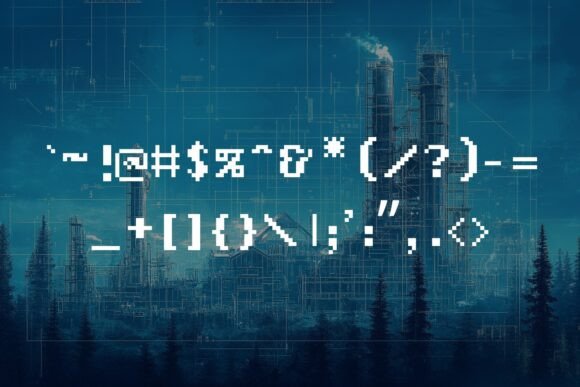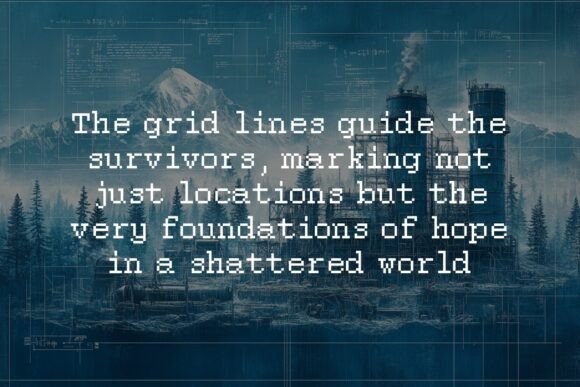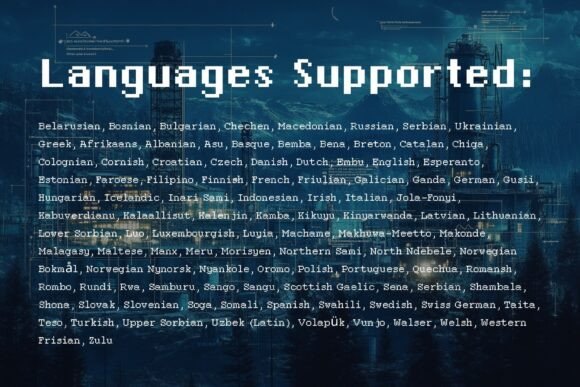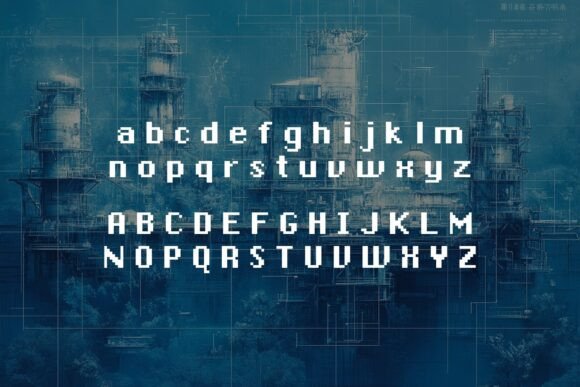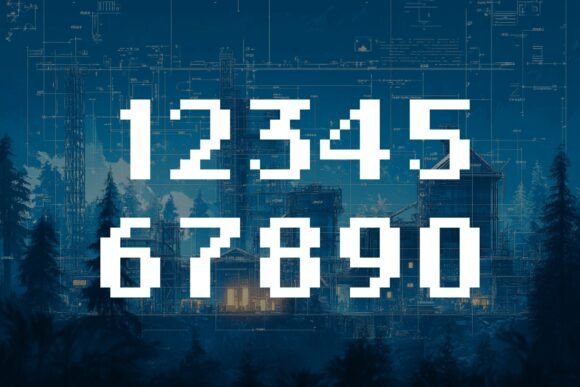
Unlock the Power of Retro Chic: Introducing Block Blueprint Font
Have you ever stared at a blank canvas, desperate to bring your next design project to life, only to be met with a sea of pixels and a blank slate? We’ve all been there – the thrill of creation, the agony of uncertainty. But what if you could tap into a timeless aesthetic that not only evokes nostalgia but also brings precision and clarity to your work?
Enter the Block Blueprint Font, a sleek and legible 8-bit pixel font designed to transport your digital designs back in time while retaining the functionality of modern typography. This versatile font is the perfect companion for any project that requires a pixelated look, from retro games to digital art and everything in between. With its crisp, well-defined characters, the Block Blueprint Font ensures maximum readability across various screen sizes and resolutions, making it an invaluable asset for designers.
Key Features of Block Blueprint Font
- Font Size: The font is designed to be highly legible at sizes ranging from 12pt to 24pt, making it suitable for a wide range of applications, including body text and headings.
- Resolution: Block Blueprint Font is designed to be resolution-independent, ensuring it looks crisp and clear at various resolutions, from low-resolution displays to high-resolution screens.
- Unique Characteristic: The font features a distinctive block-like structure, with each letter carefully crafted to provide maximum clarity and readability, making it an ideal choice for use in technical and instructional contexts.
- Language Support: The font supports a wide range of languages, including Latin, Cyrillic, and Greek, making it a versatile choice for global applications.
Block Blueprint Font Review
Overall, I’m impressed with the Block Blueprint Font, but it’s not without its quirks. Let’s dive into what works well and what doesn’t.
- The font’s grid-based design is perfect for creating a modern, industrial look.
- The characters are well-spaced and easy to read, even at smaller font sizes.
- The font is highly customizable, allowing you to adjust the line height, font size, and more.
- The font may not be the best choice for projects that require a lot of text, as the grid-based design can make it difficult to read long blocks of text.
- The font is not ideal for projects that require a lot of emphasis or highlighting, as the grid-based design can make it difficult to create visual hierarchy.
The Block Blueprint Font is a great choice for projects that require a modern, industrial look. While it has some limitations, its customization options and well-spaced characters make it a great option for designers who want a unique and functional font.
Getting the Most Out of Block Blueprint Font
Here are some tips for getting the most out of Block Blueprint Font:
- Use it for titles and headings to add a touch of industrial chic to your design.
- Pair it with bold colors and geometric shapes for a modern look.
Here are some common use cases for Block Blueprint Font:
- Industrial and manufacturing design
- Retro-futuristic design
- Urban and graffiti-inspired design
Alternatives to Block Blueprint Font
Open Sans is a clean and modern sans-serif font that works well for body text and headings. It’s highly legible and readable on various devices and screen sizes. Use Open Sans when you need a neutral and professional font that won’t distract from the content. Compared to Block Blueprint Font, Open Sans is more versatile and suitable for a wider range of applications.
What is the recommended font size for using Block Blueprint Font?
The recommended font size for using Block Blueprint Font depends on the specific design application and intended use. However, as a general guideline, we recommend using font sizes between 14pt and 24pt for body text, and larger font sizes for headings and titles.